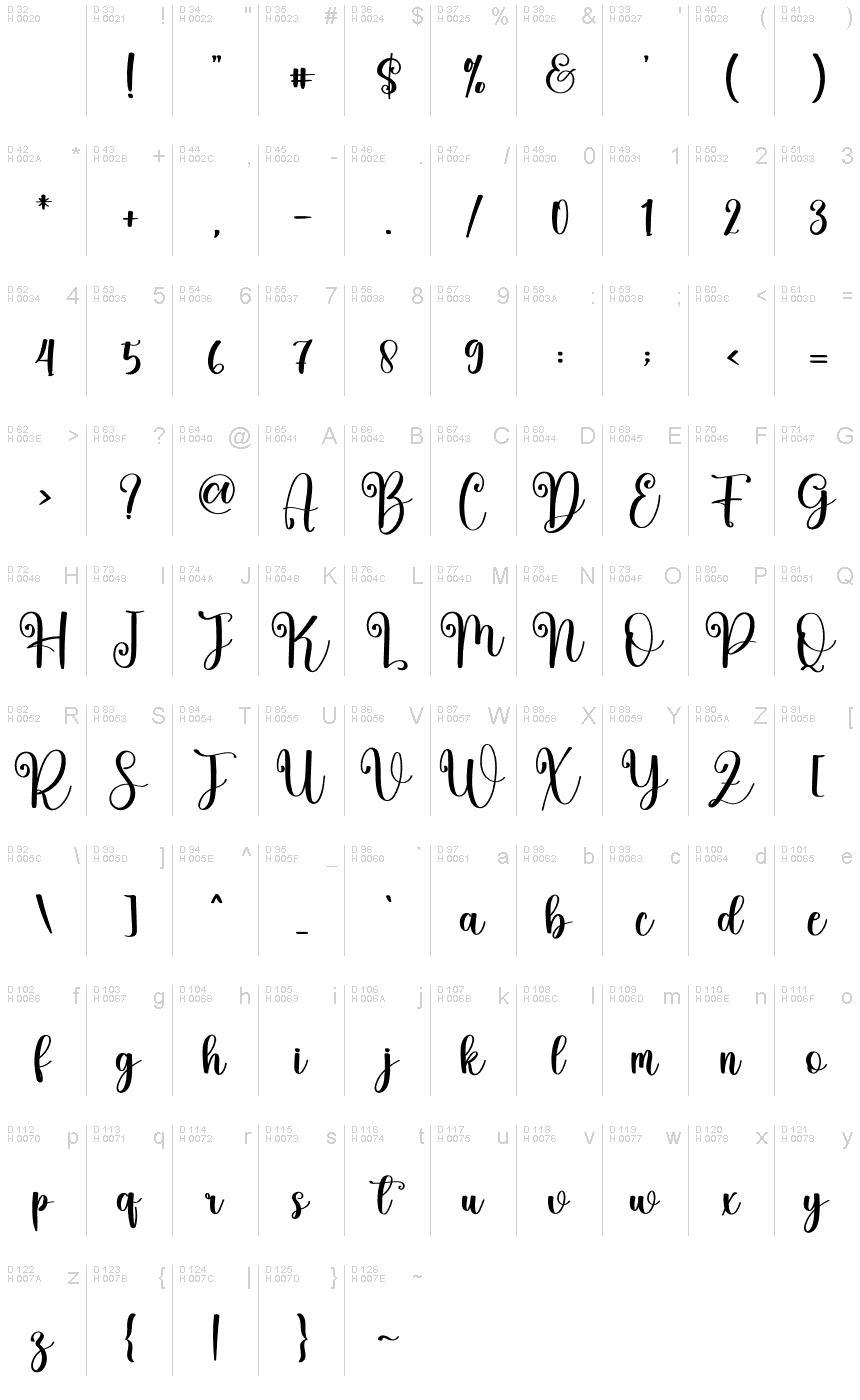
Pavilion
Pavilion, a captivating calligraphy font by FreshtypeINK, effortlessly blends sophistication and elegance. With its semi-light weight, this font exudes a delicate charm that is perfect for wedding invitations and romantic stationery projects. Its graceful strokes and intricate details make it an ideal choice for branding luxurious fashion boutiques or high-end beauty salons. Pavilion adds a touch of refinement to book covers, magazine titles, and editorial designs, capturing readers' attention with its timeless allure. Let your creativity flourish as you explore the endless possibilities that Pavilion brings to your design projects.